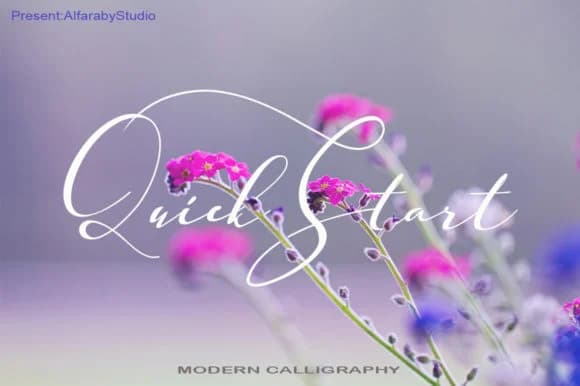
Bagadang by faisal_Alfaraby is a calligraphy script built on a distinctive baseline variation that brings both polish and personality to nearly any design project. The typeface sits comfortably in that sweet spot between formal elegance and contemporary edge, making it valuable across a spectrum of applications from personal branding to luxury goods.
This font shines on wedding invitation suites, where designers need something that feels genuinely personal without sacrificing sophistication or legibility. You'll reach for it equally often on custom t-shirt designs that need a signature-style flourish, brand logos that demand character, and professional letterheads where that hand-drawn touch makes the difference. Label design for boutique product packaging is another natural home for it, as is event poster work and commemorative badges where you want something that reads as crafted rather than generic.
What makes Bagadang work across so many applications is that varied baseline; it gives each piece an organic quality that standard fonts can't match. When you use it, your work looks like someone actually sat down and wrote it, which feels increasingly rare in design work. Beyond the aesthetic appeal, the baseline variation means the font scales beautifully across everything from poster-sized headlines to detailed label work. Head to Creative Fabrica to add Bagadang to your toolkit.
- Elegant, Flowing, Signature
Bagadang Font is a script font that shines as a display or heading face. Pair it with a clean sans-serif or serif font for body text β the contrast creates a clear hierarchy while the two styles stay balanced and easy to read.